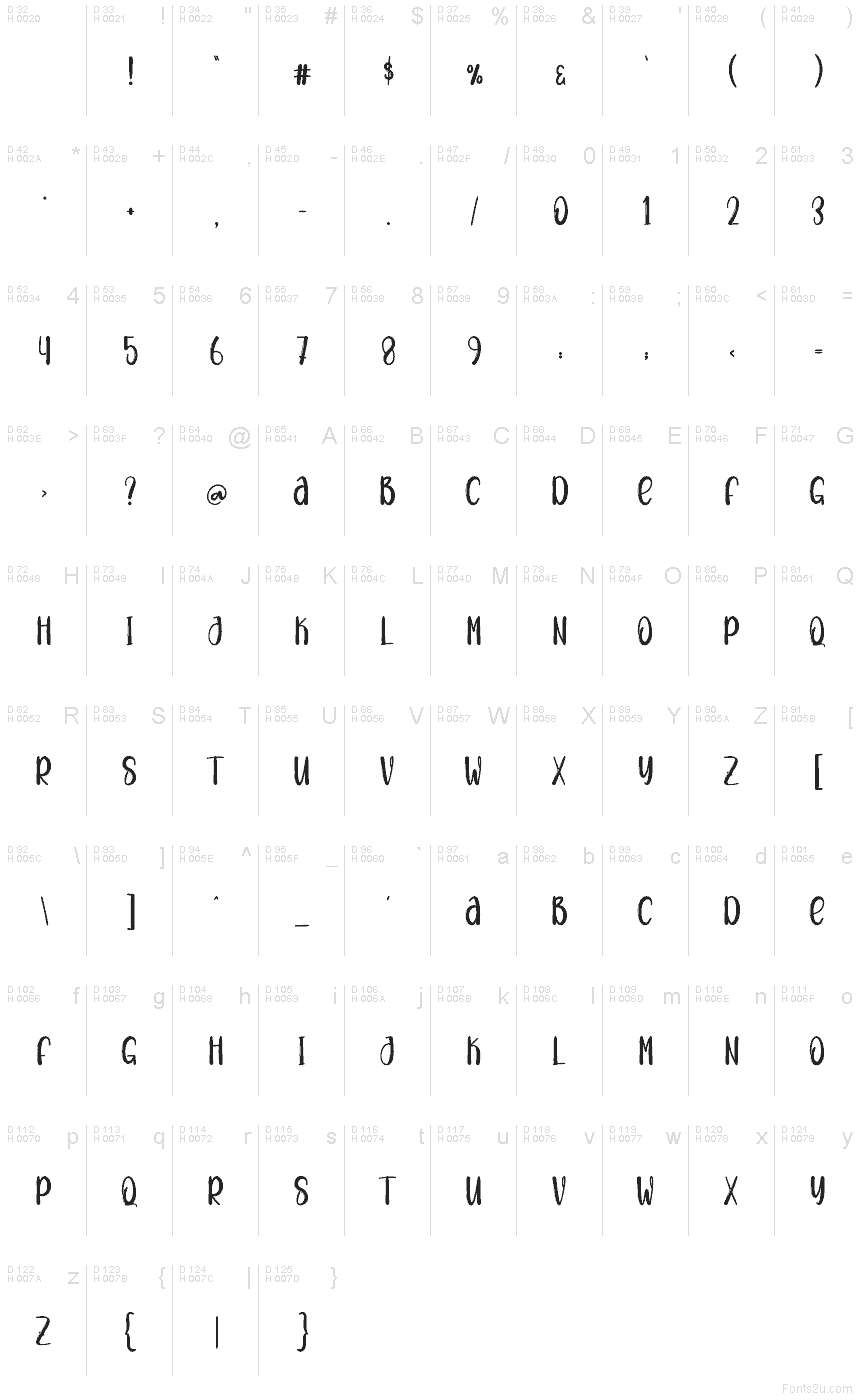
Shadnes
Shadnes font by Andi Moz is where flowing brush forms and a modern appeal meet with energetic condensed letter styles. This handwritten font features informal character without forgetting the power of some great legibility and versatility aspects. It brings each character together for a creative rounded simplicity inspired from some of the most outstanding handwritten fonts.